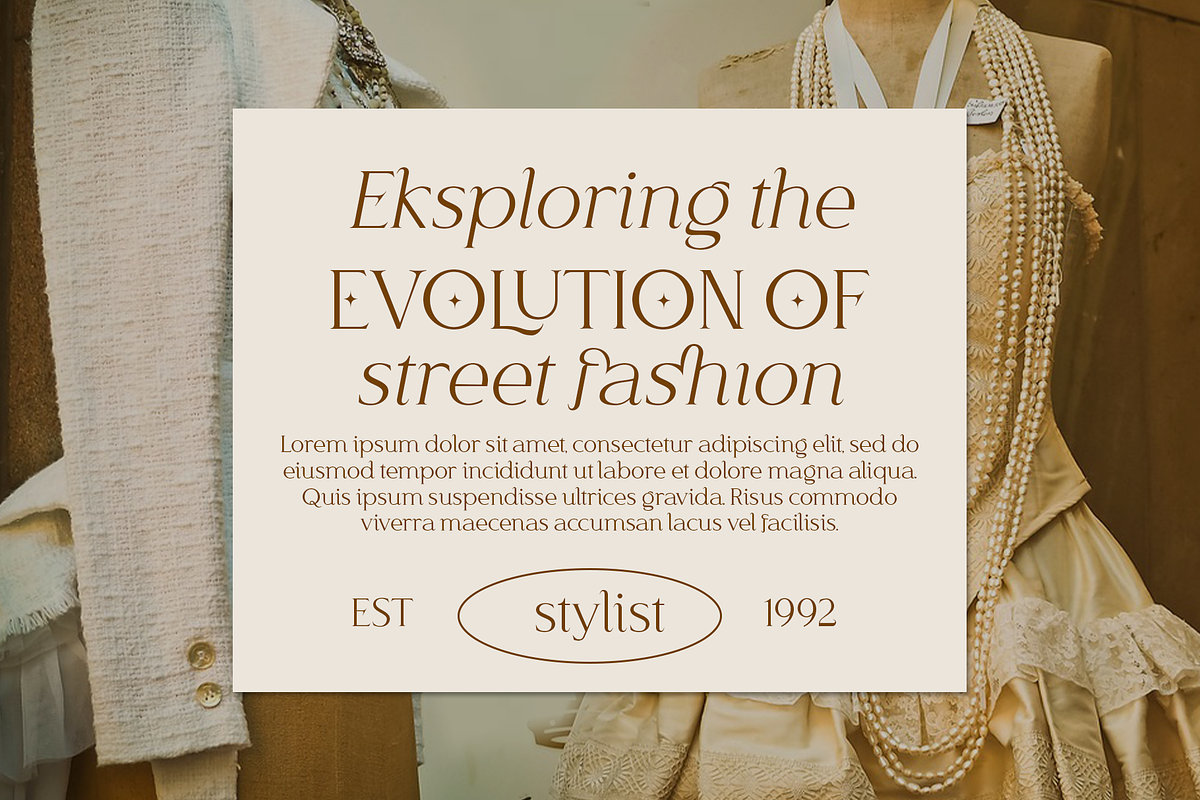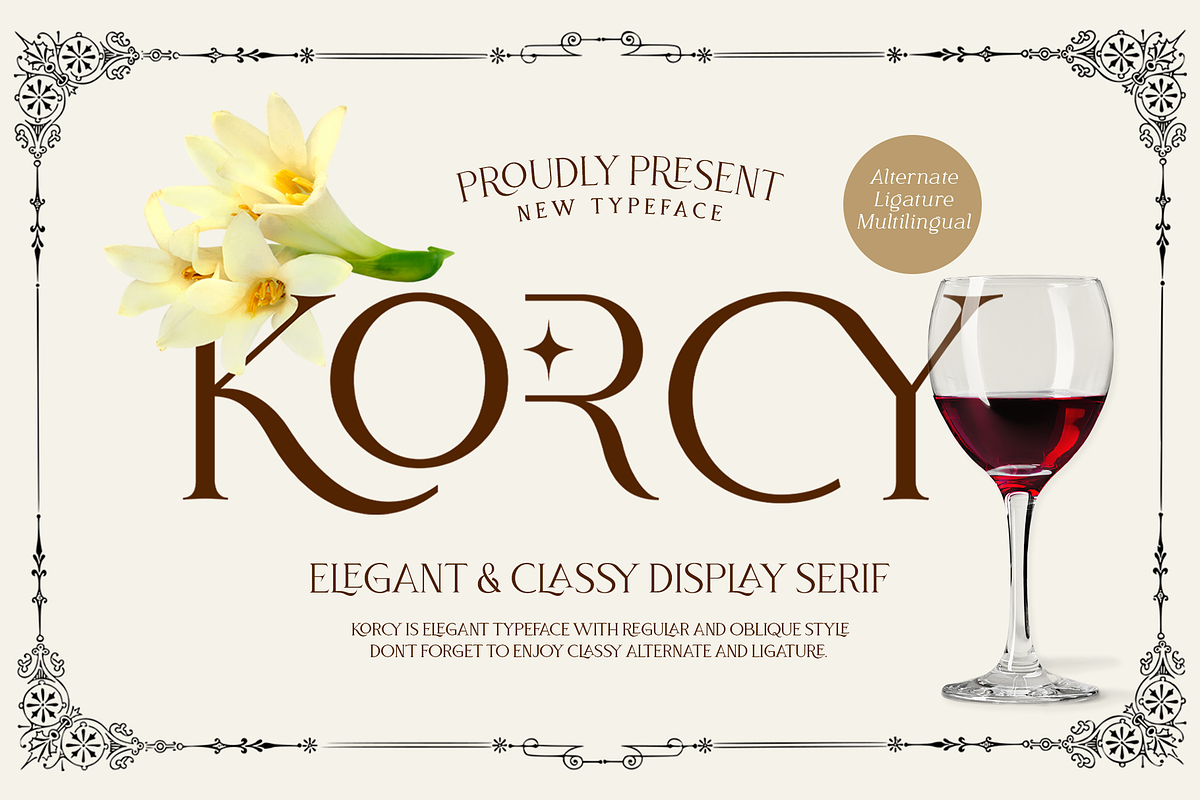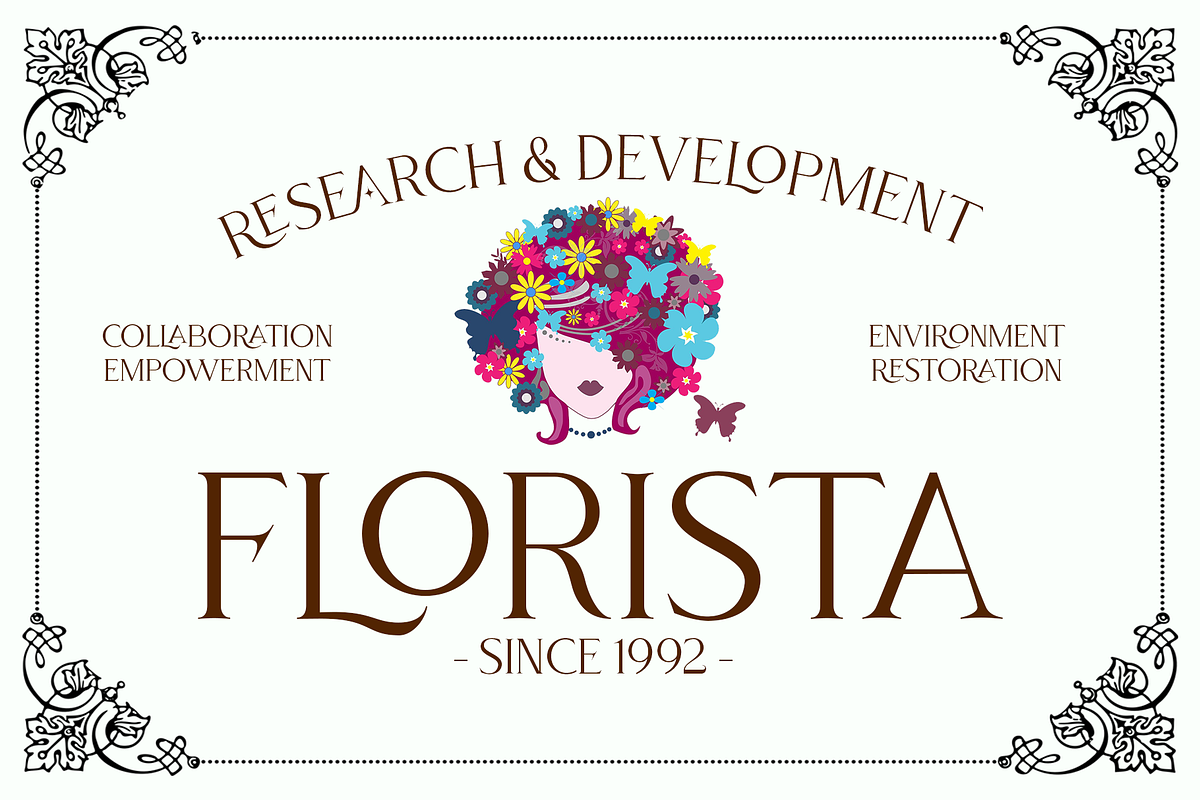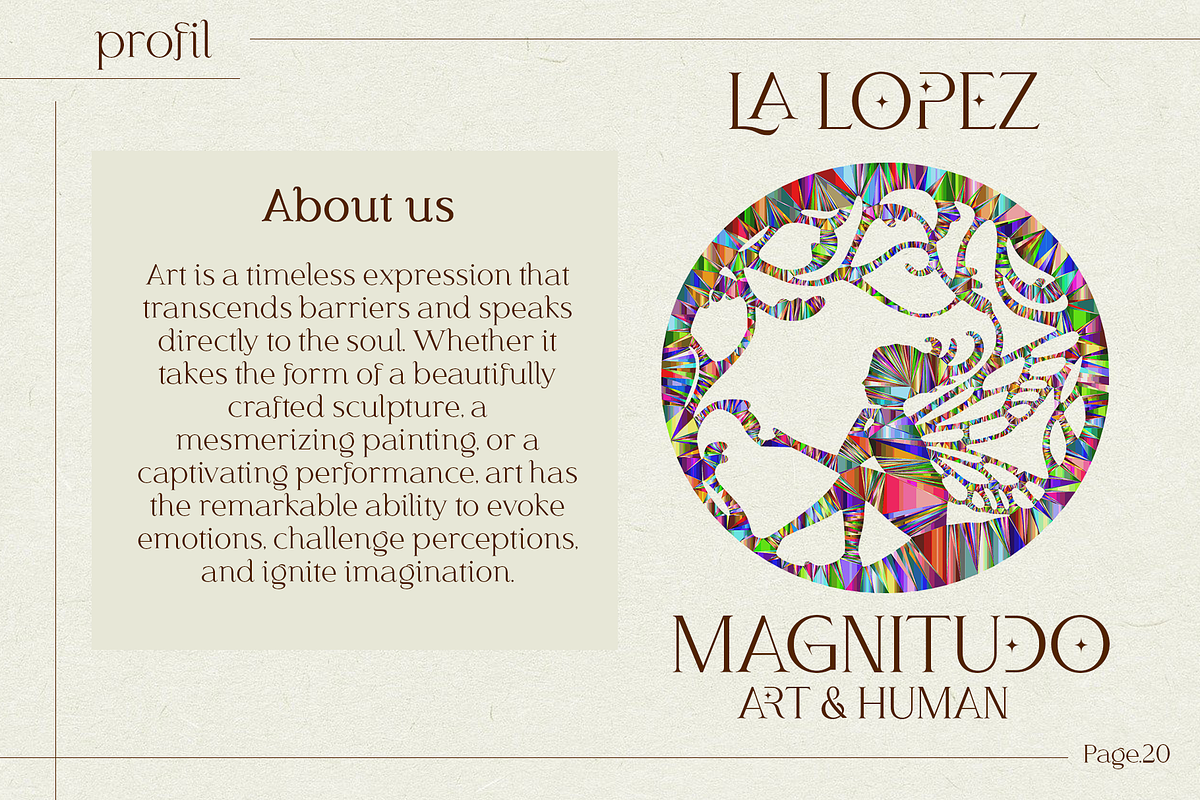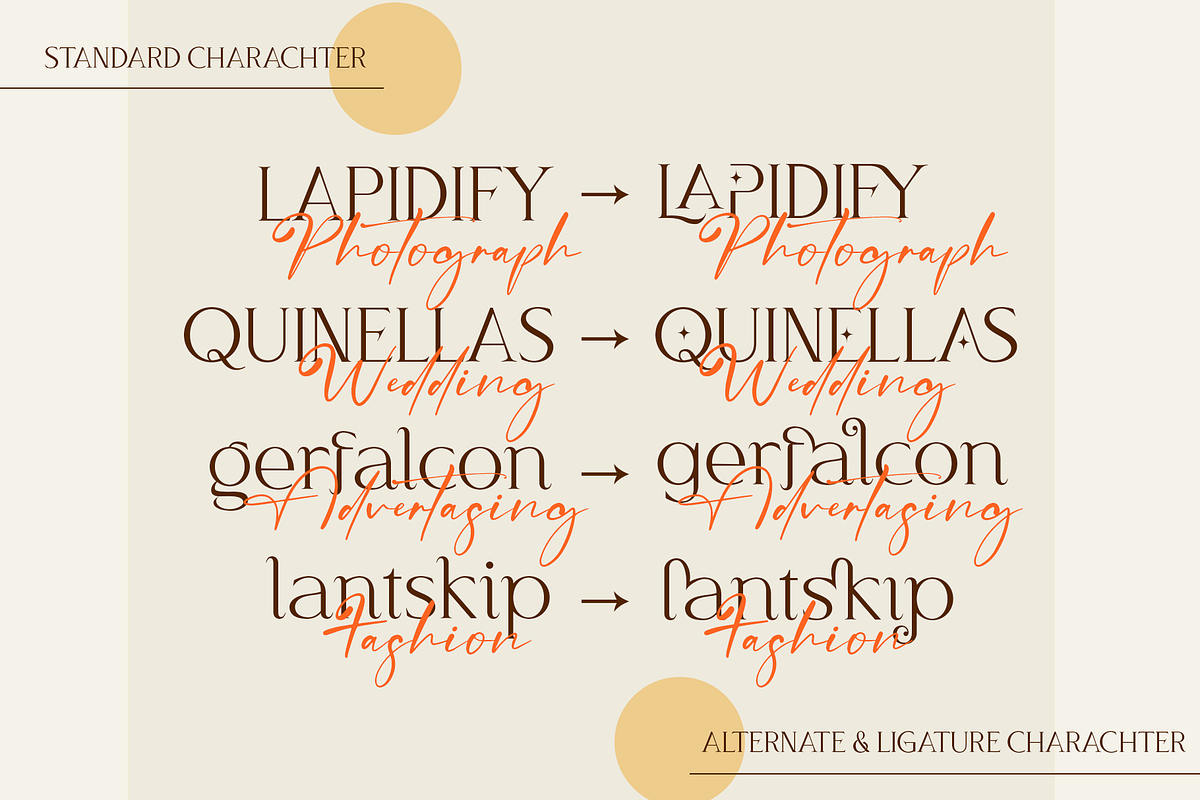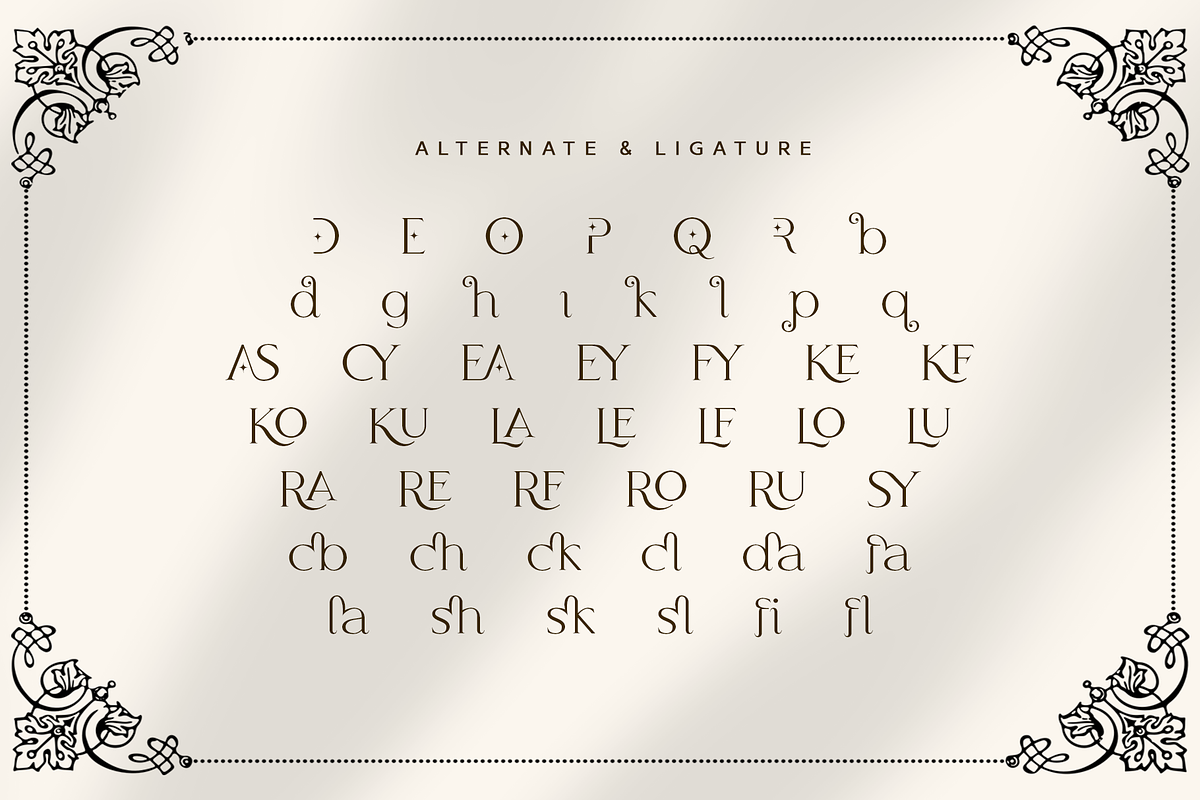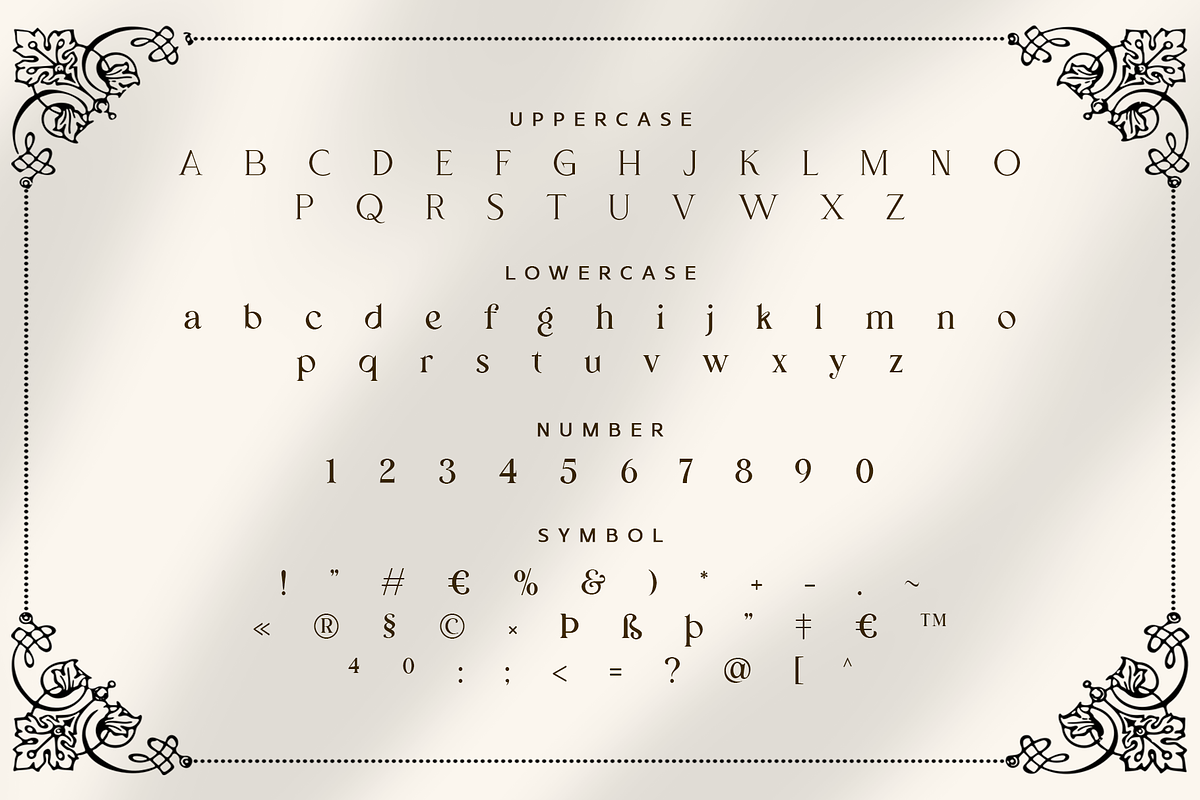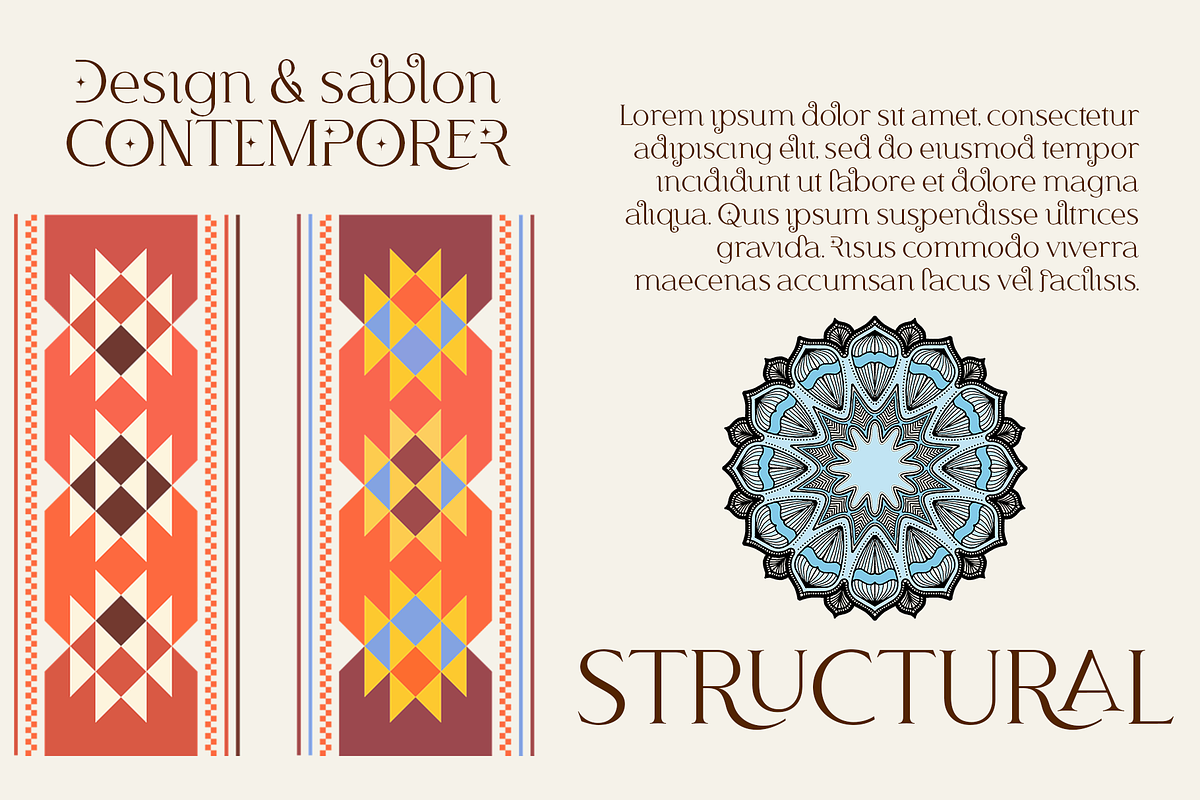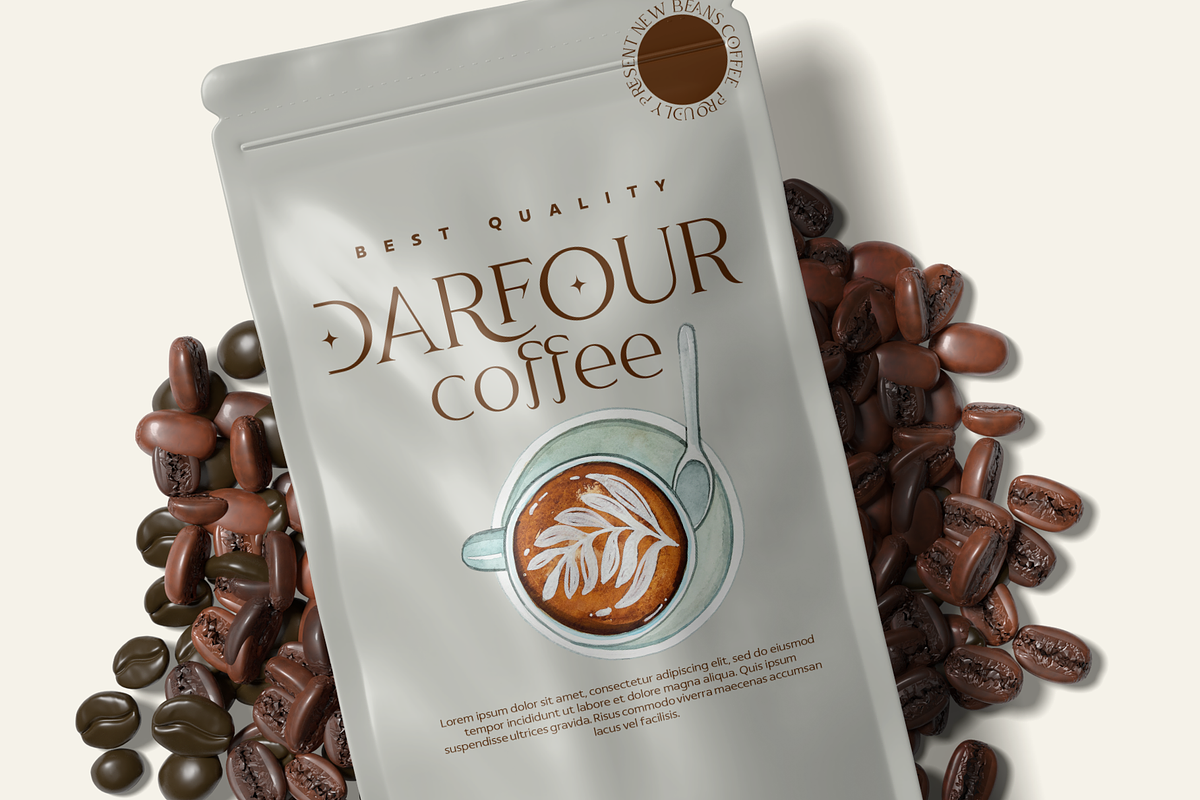
Korcy
KORCY
Korcy is a display typeface with sharp serifs that contains two styles: Regular & oblique.
It comes with many standard ligatures as well as titling alternatives. The font supports many languages using the Latin-based alphabet.
Korcy is a typeface that is elegant, contemporary, and urbanic.